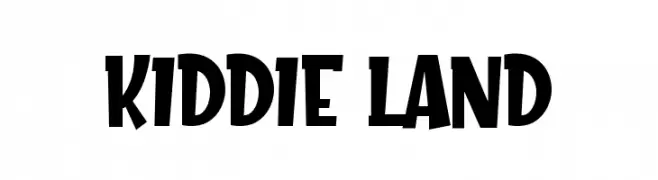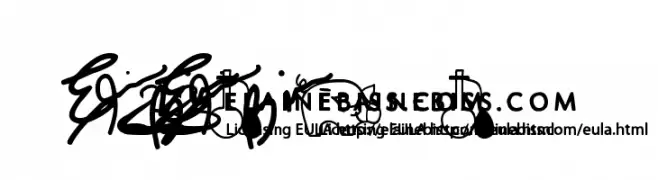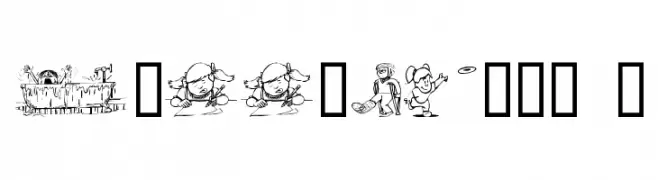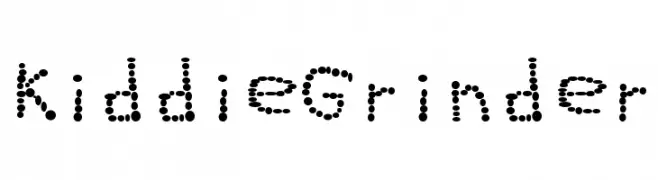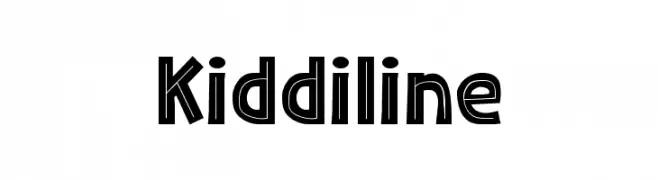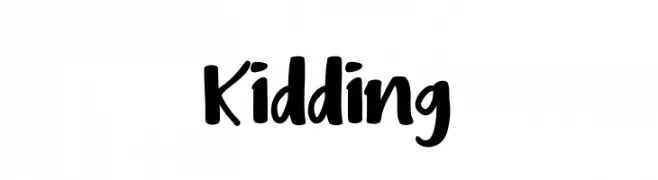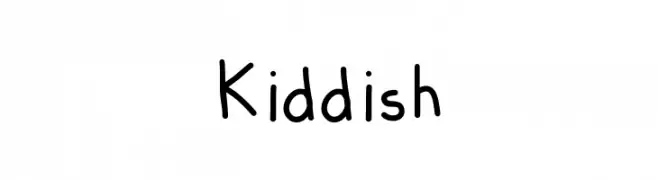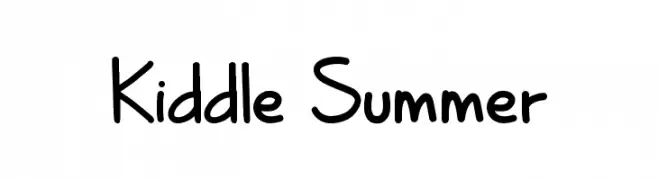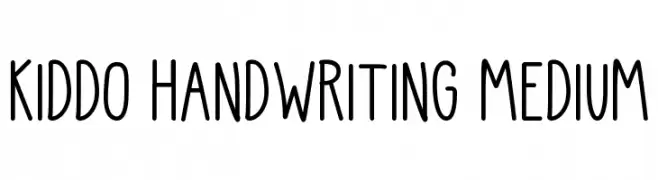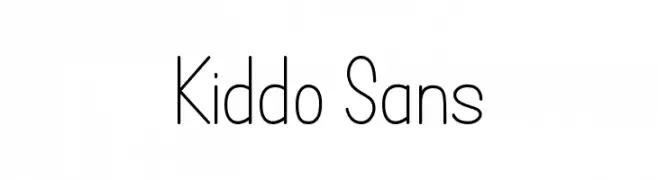
A playful, bold font with a whimsical, hand-drawn style.
Hand-drawn dingbat font with playful child illustrations.
Cartoon children dingbat font with playful, hand-drawn illustrations.
Hand-drawn, doodle-style font with playful illustrations.
A playful, hand-drawn font with a whimsical and informal style.
A playful, bold font with an outlined style, perfect for engaging and fun designs.
A playful, bold handwritten font with lively, irregular shapes.
A playful handwritten font with a whimsical and friendly style.
A playful, handwritten font with smooth, rounded strokes.
A playful, handwritten font with a casual and creative style.
A playful, handwritten font with a medium weight and rounded edges, perfect for creative projects.
A playful, modern sans-serif font with tall, narrow characters and rounded edges.
A playful, handwritten font with a whimsical and casual style.
A bold, playful handwritten font with a casual and friendly vibe.
A playful, hand-drawn font with bold, rounded characters and a whimsical style.
A playful, hand-drawn font with bold, rounded letters and a whimsical style.
A playful, hand-drawn font with bold, rounded characters and a whimsical style.
A playful, handwritten font with a whimsical and childlike charm.
A playful, handwritten script font with a whimsical and casual style.
A playful, handmade-style font with bold, rounded letterforms.
A playful, handwritten font with a lively and informal style.
A playful, handwritten font with a whimsical and childlike charm.
A playful, bold font with rounded, block-like characters.
A bold, playful font with rounded, blocky characters and a whimsical style.
A bold, rounded, and playful font with a strong, decorative style.
A bold, playful font with a rounded, extruded style and tight spacing.
A playful, outlined font with bold, rounded characters and a whimsical style.
A playful, rounded font with bold, smooth curves and a friendly appearance.
A playful, bold font with rounded, chunky letters and a whimsical style.
A playful, bold font with rounded, bubbly characters perfect for fun projects.
A bold, playful font with rounded, whimsical characters.
A bold, playful font with rounded characters and an extruded effect.
A playful, outlined font with rounded, bold characters and a whimsical style.